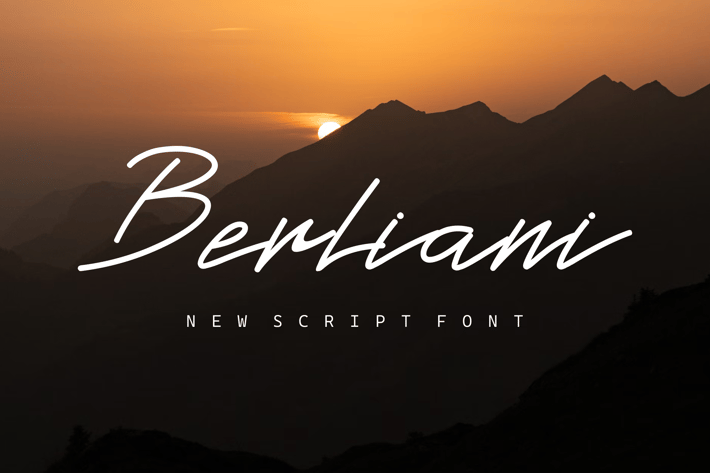
Berliani Handwritten Font.
Introducing our new product the name is Berliani Font. Modern Decorative Fonts that feels beautiful classy, elegant, and modern. This font is perfectly suited for a wide variety of projects, such as signature, stationery, logo, wedding, typography quotes, magazine or book cover, website header, branding, packaging design, and more. Also, fashion-related branding or editorial design displays both masculine and feminine qualities.